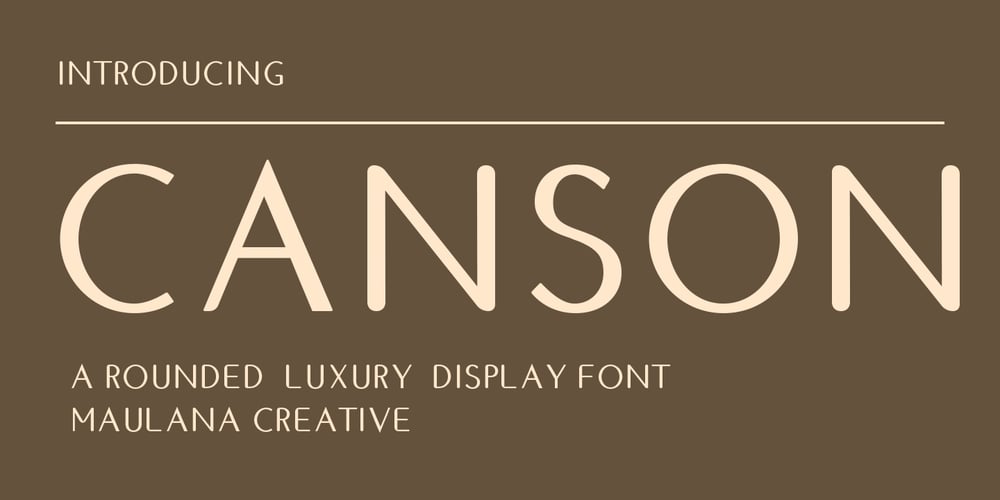
MC Canson
MC Canson font
MC Canson Font Family was designed by Gilang Maulana and published by Maulana Creative. MC Canson contains 1 styles and family package options. Canson is a rounded luxury sans display font. With bold tall and sharp stroke, fun character with a bit of ligatures and alternates. To give you an extra creative work. Canson font support multilingual more than 100+ language. This font is good for logo design, Social media, Movie Titles, Books Titles, a short text even a long text letter and good for your secondary text font with sans or serif. Make a stunning work with Canson font.